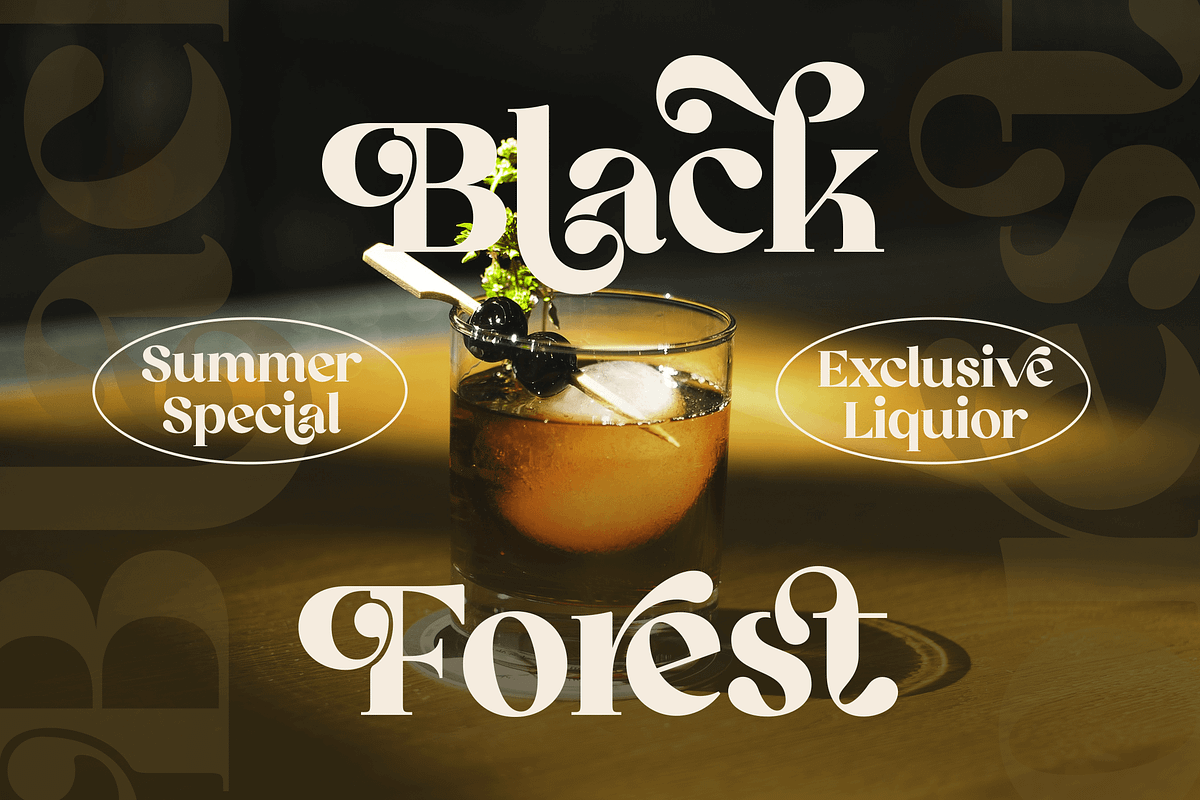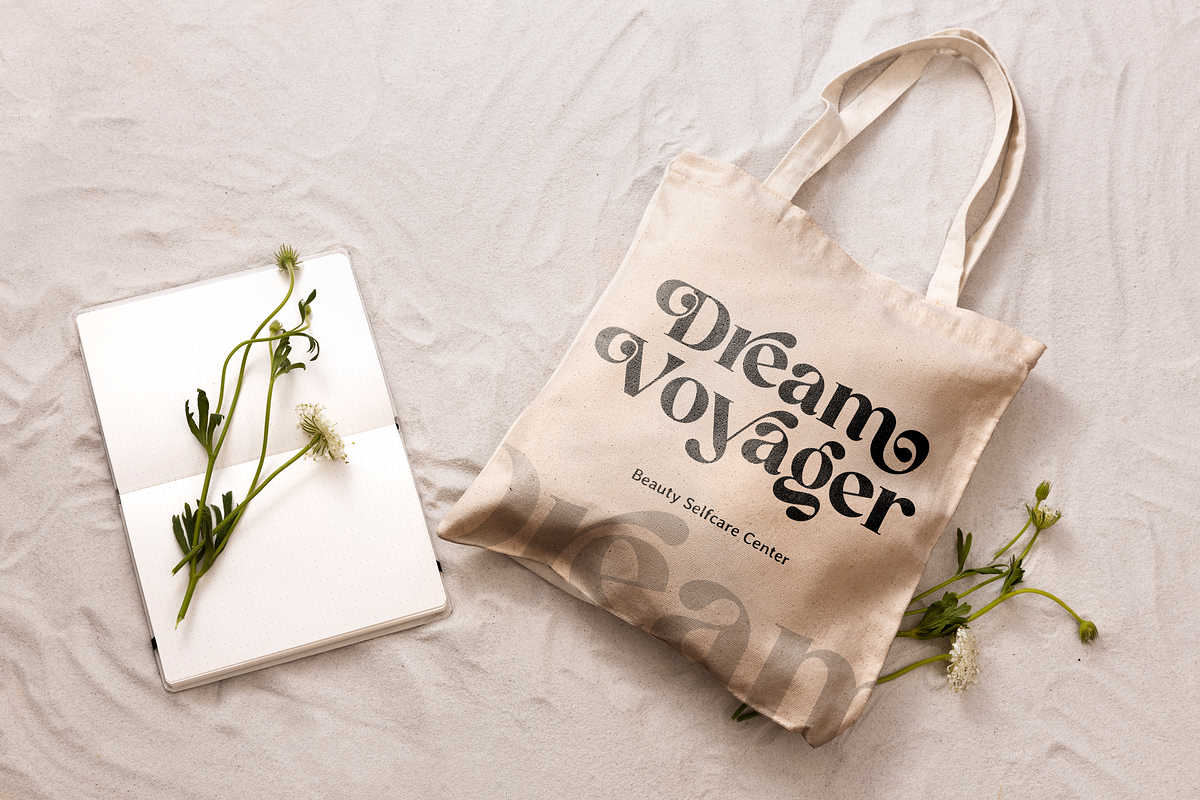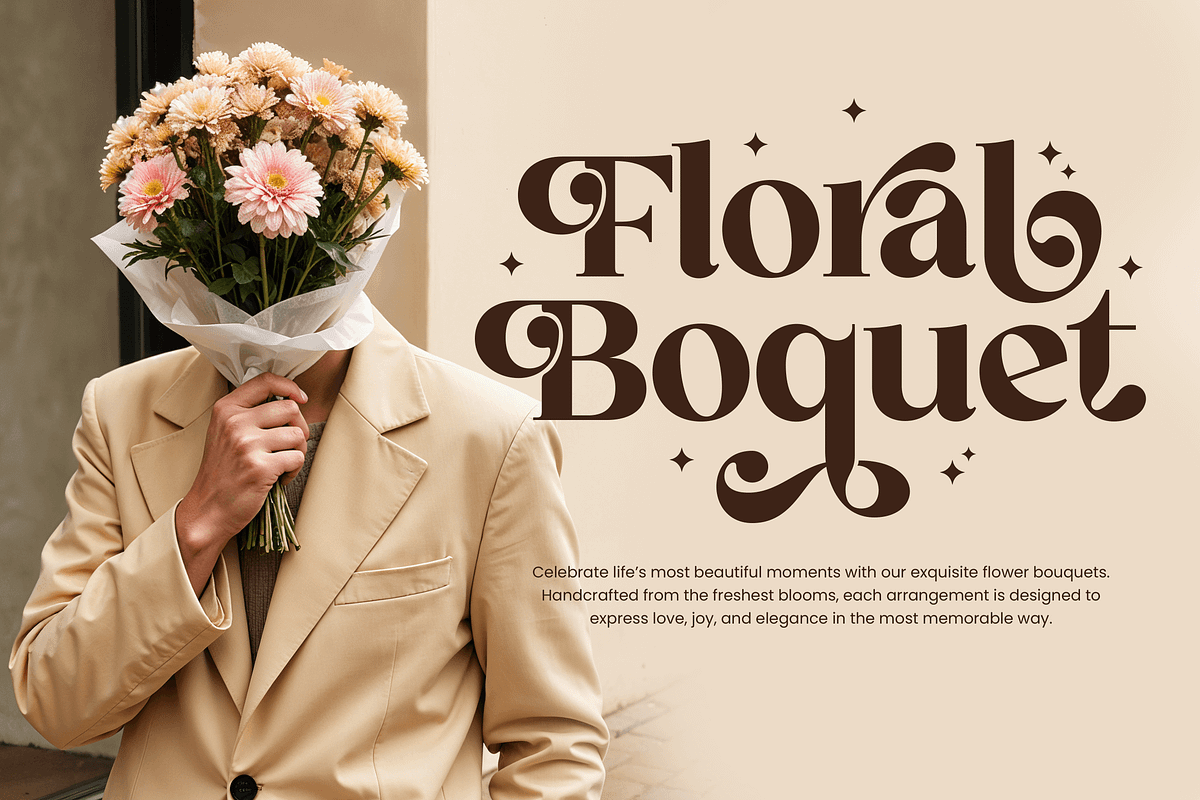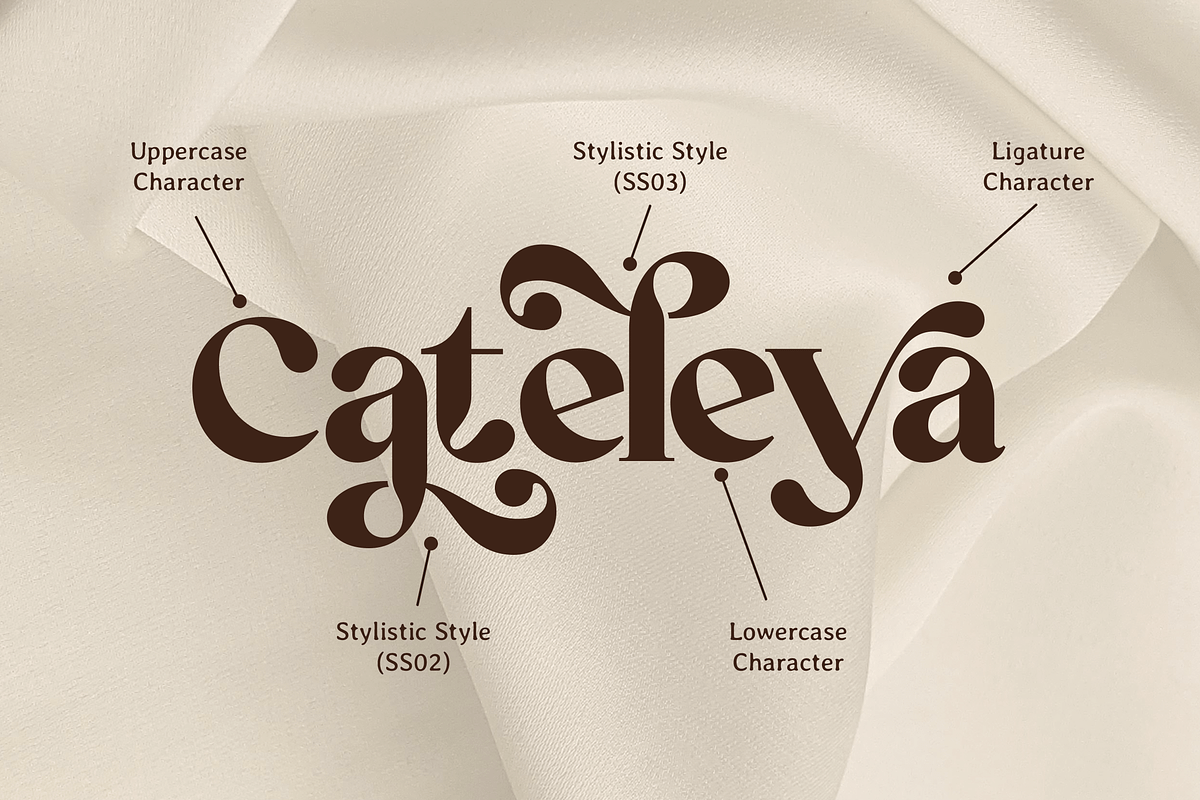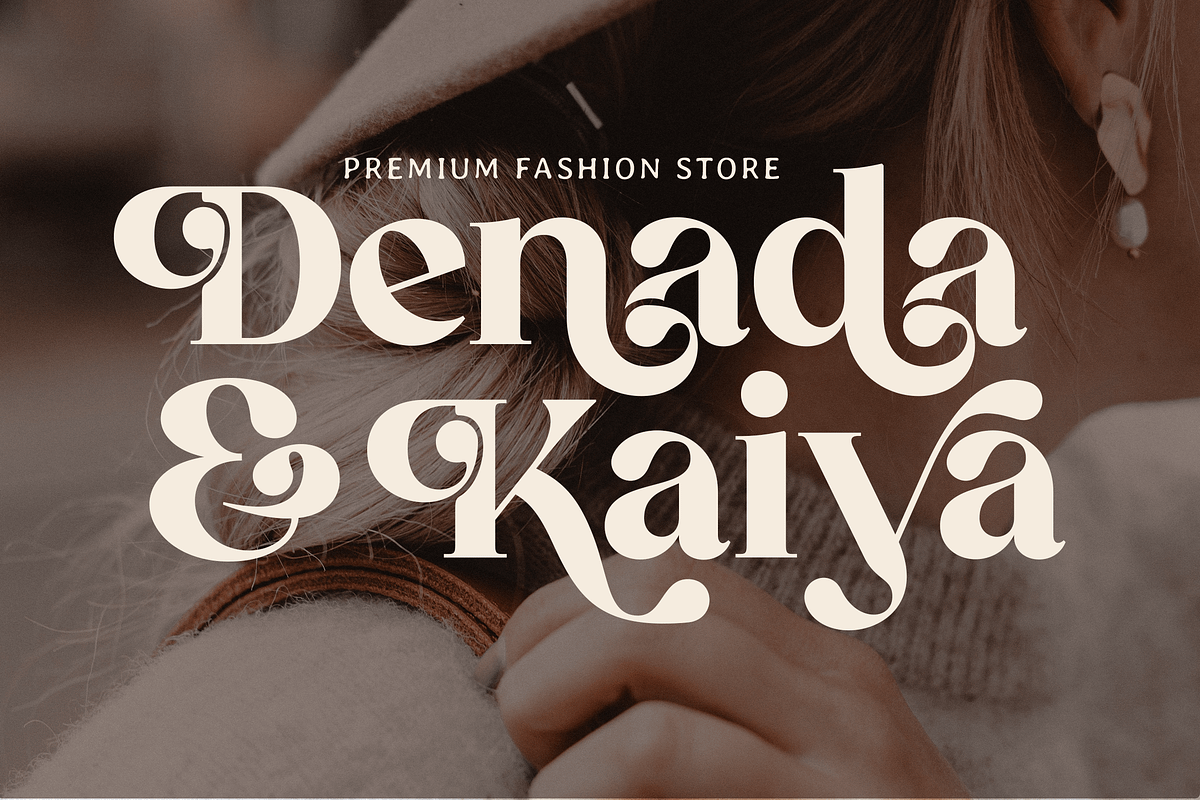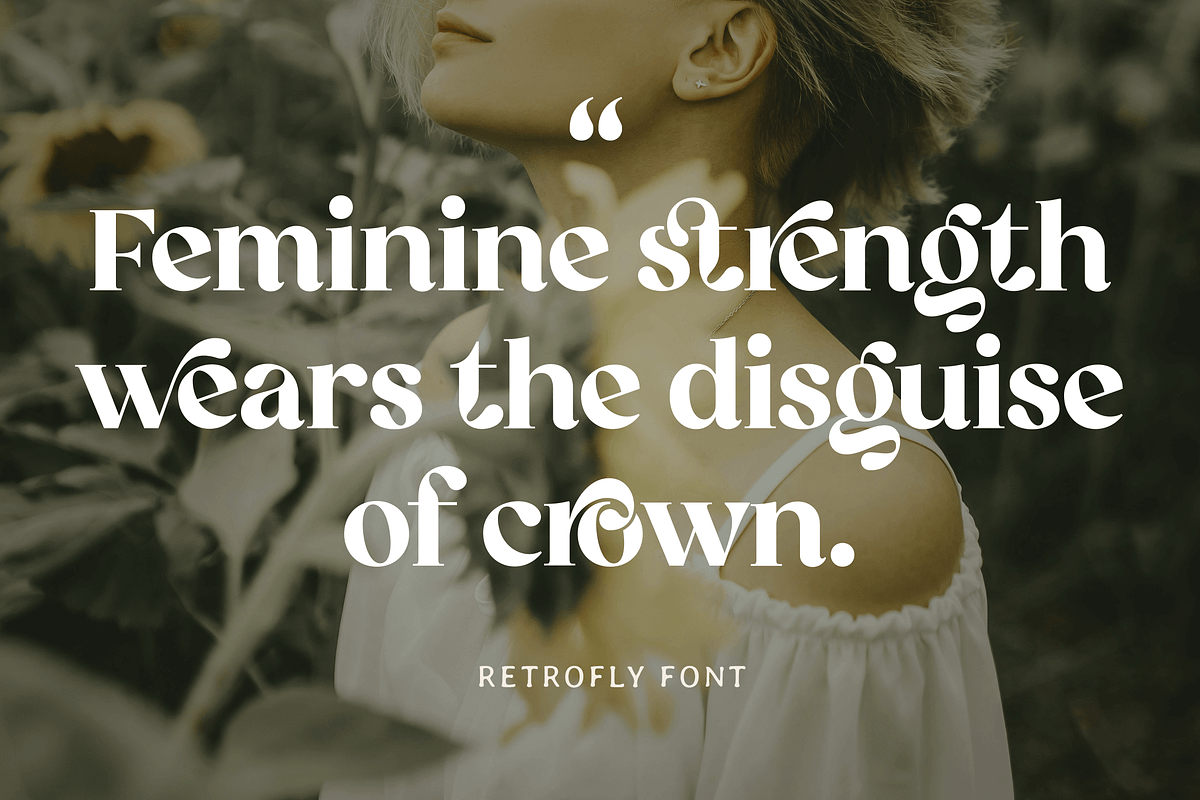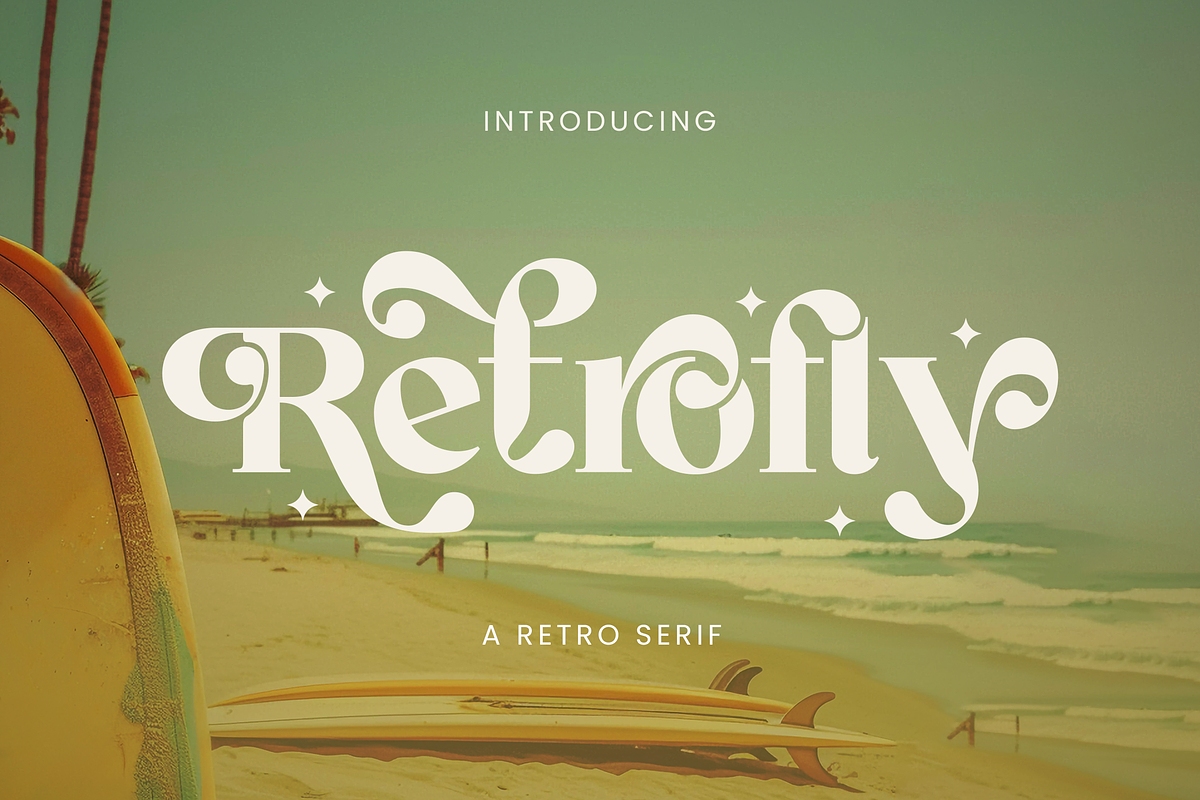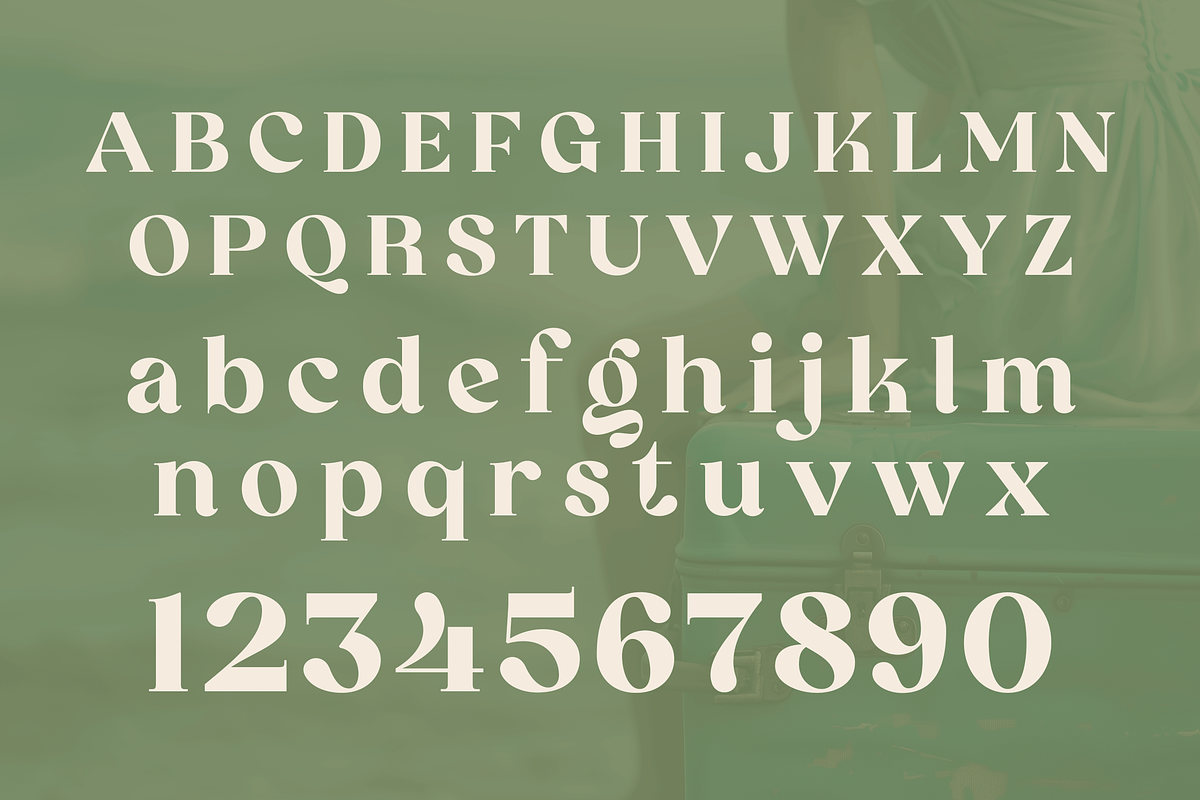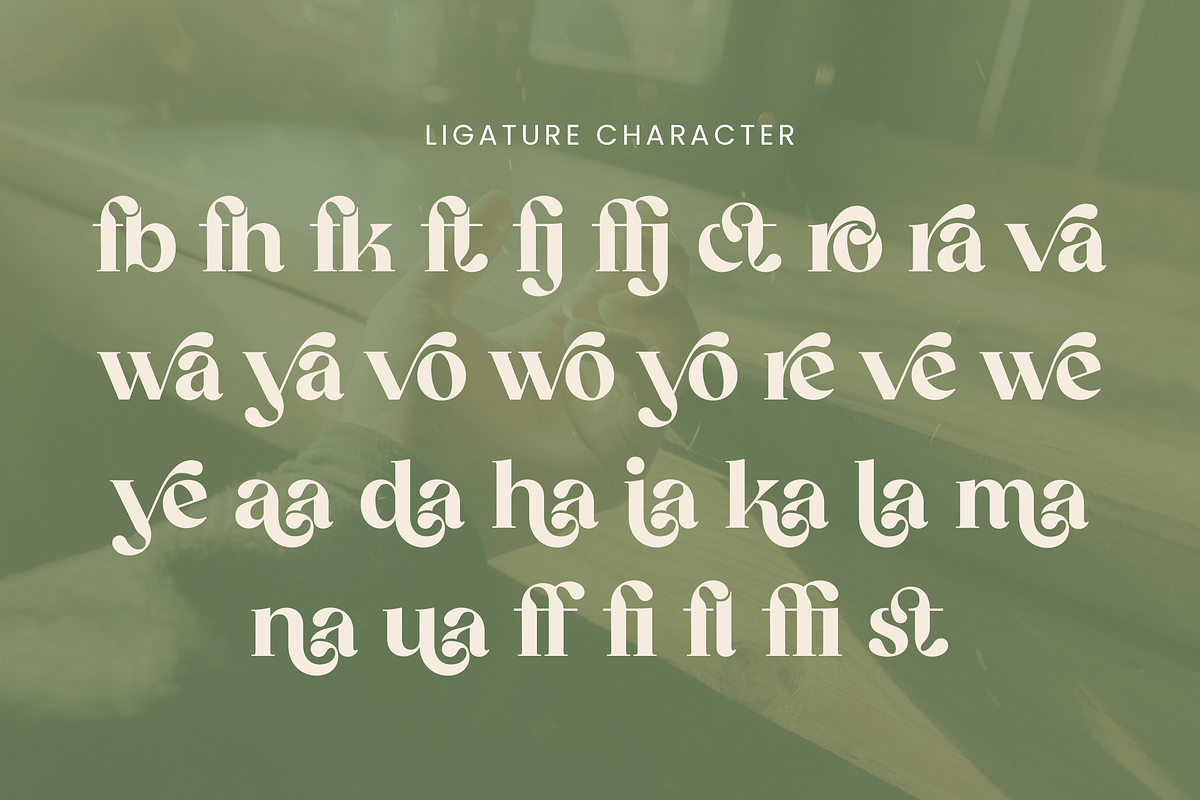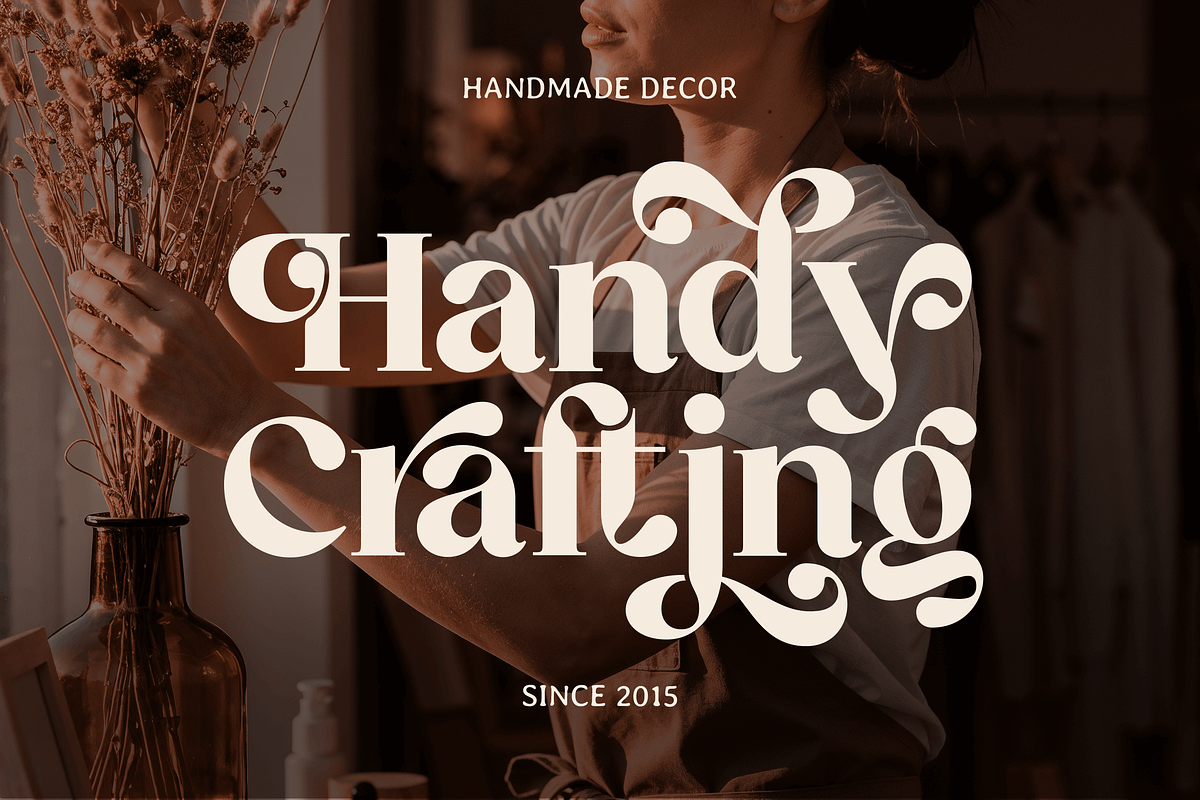
Retrofly A Retro Serif
Retrofly is a bold retro serif font inspired by the vibrant typography of the 70s and 80s. With its playful curves, groovy letterforms, and high-contrast details, Retrofly brings back the charm of vintage design while keeping a modern edge.
Perfect for logos, posters, t-shirts, packaging, and branding projects, Retrofly instantly energizes your work with a nostalgic yet stylish personality. Its distinctive style makes it ideal for headlines, social media graphics, and creative compositions that need a bold retro touch.
Whether you’re designing for fashion, music, or lifestyle brands, Retrofly adapts effortlessly—giving your projects a lively, timeless groove.
- OpenType features (ligatures and alternates)
Bring your ideas to life with Retrofly — a retro serif font crafted to shine with vintage spirit and modern flair.